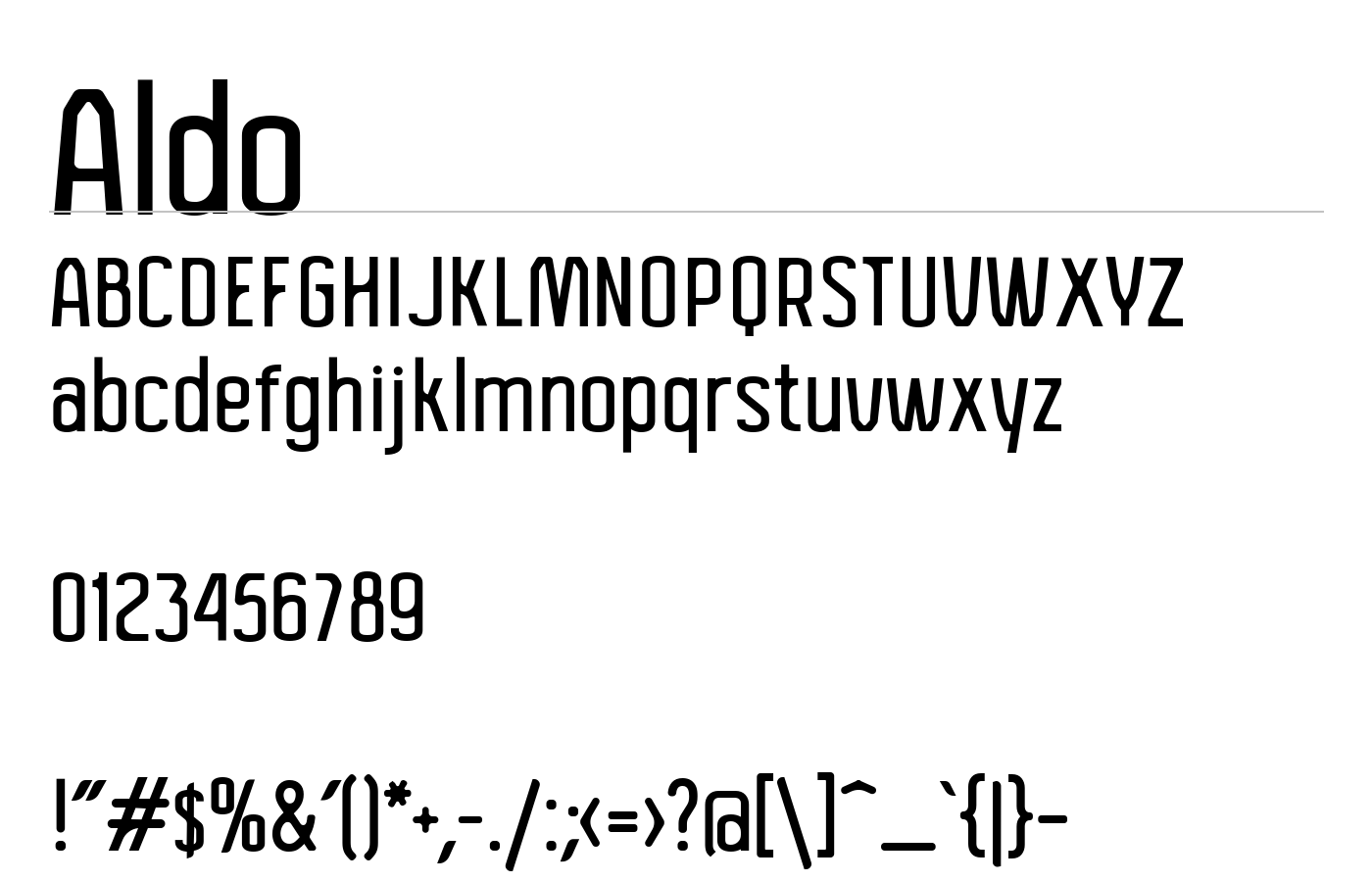
Aldo Sans Condensed is a modern, narrow sans-serif font with a clean and slightly technical feel. Its tall, condensed letterforms feature consistent stroke widths and minimal contrast, making it highly legible and efficient for tight spaces. This font works well for contemporary branding, editorial headlines, and digital interfaces where a sleek, professional look is desired without sacrificing clarity.
Aldo Sans Condensed Sans-Serif Family Font
About Aldo Sans Condensed Sans-Serif Family Font
| Font family | Aldo Sans Condensed Sans-Serif Family Font |
| Designer | Cristian Tournier |